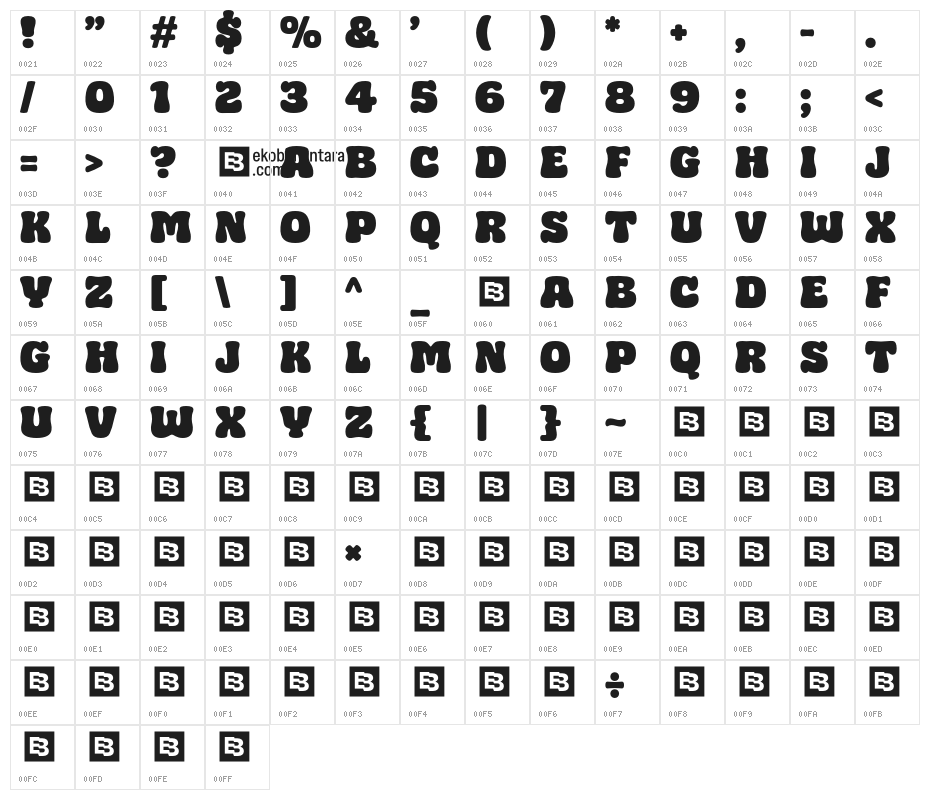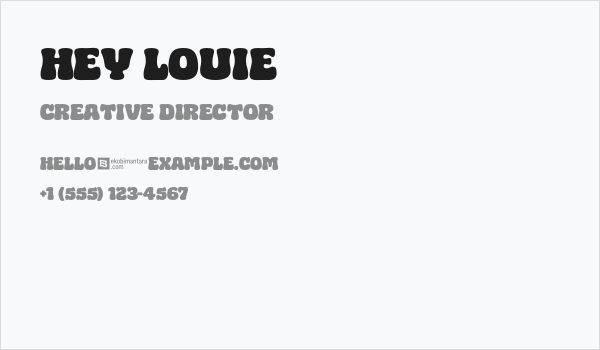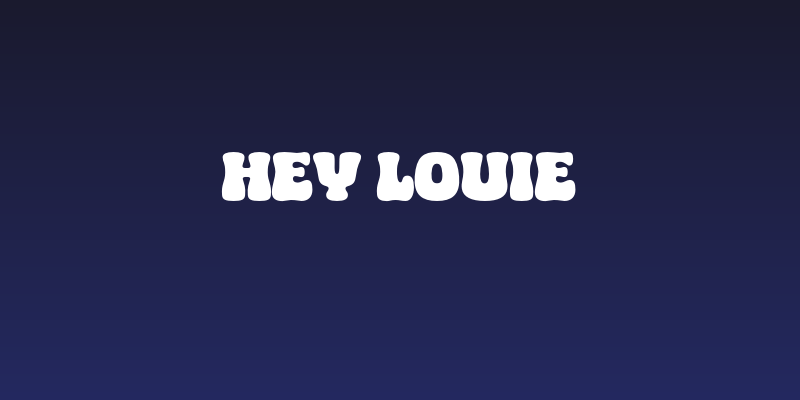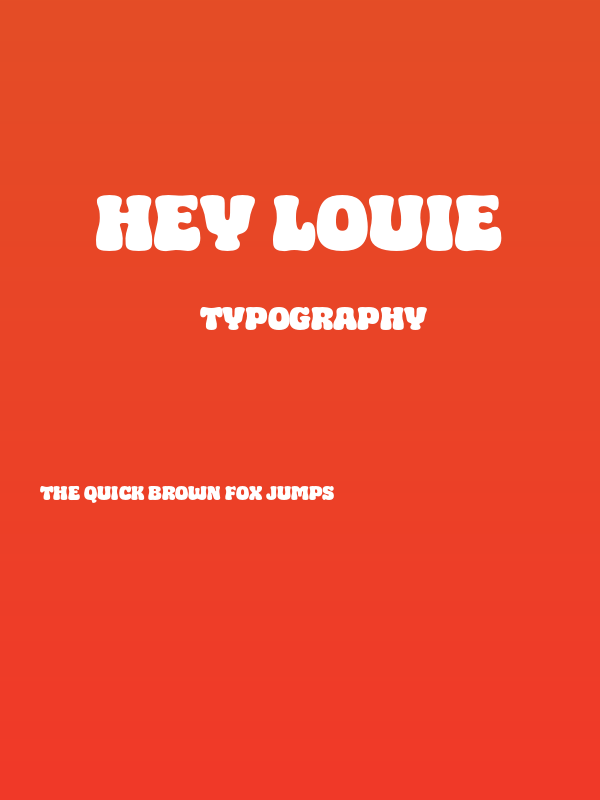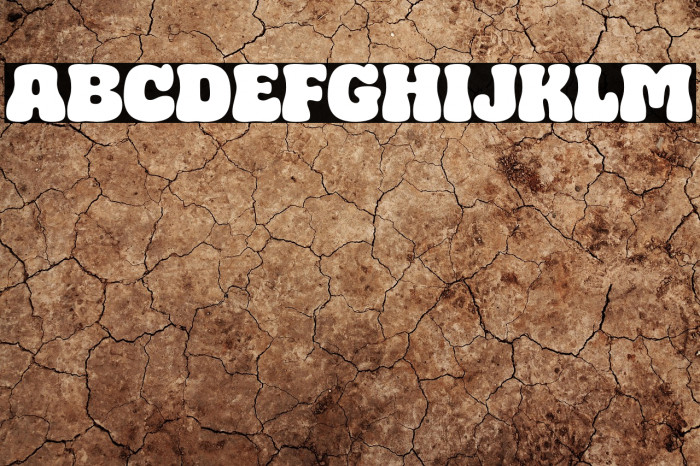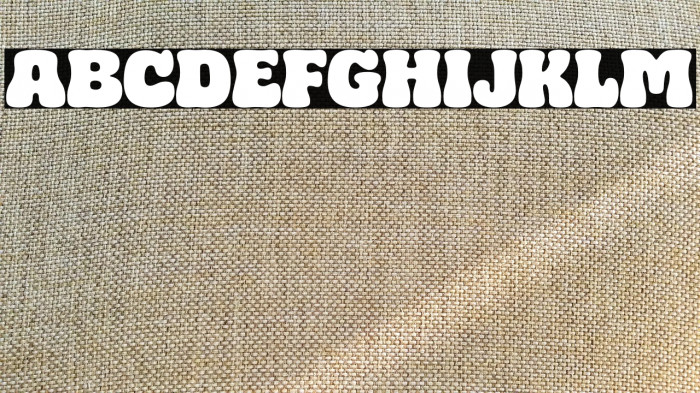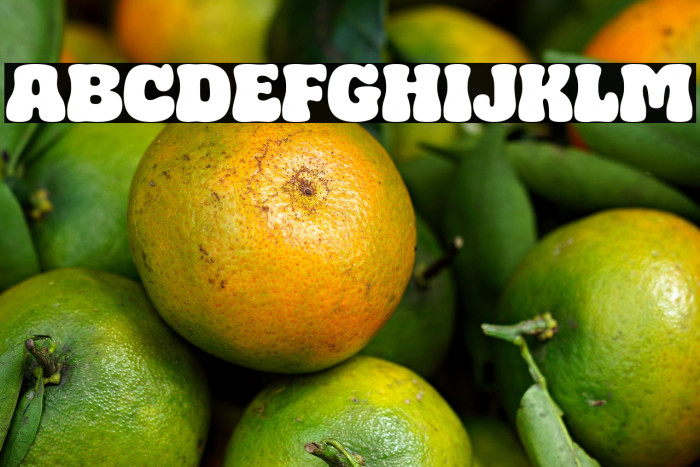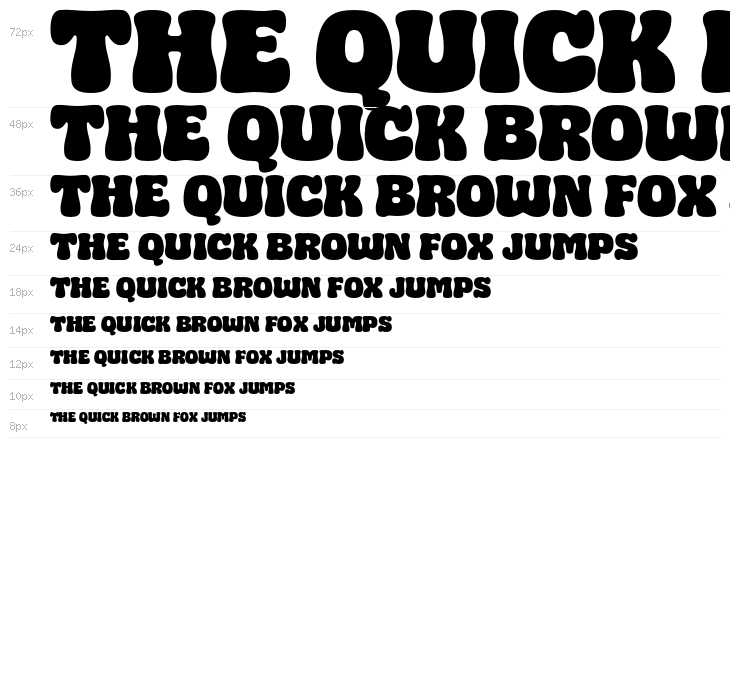
HEY LOUIE Font
HEY LOUIE Description
This font features a bold and playful design with rounded edges and a bubbly appearance. The characters are thick and have a uniform weight, giving them a strong presence. The style is reminiscent of retro or vintage aesthetics, often seen in designs from the 1960s and 1970s. The letters are evenly spaced, contributing to its legibility despite the heavy weight. The numbers and special characters maintain the same playful and bold characteristics, making the font suitable for eye-catching designs.
| Proposed Projects | Ideal for retro-themed posters, children's book covers, playful branding, and eye-catching headlines. |